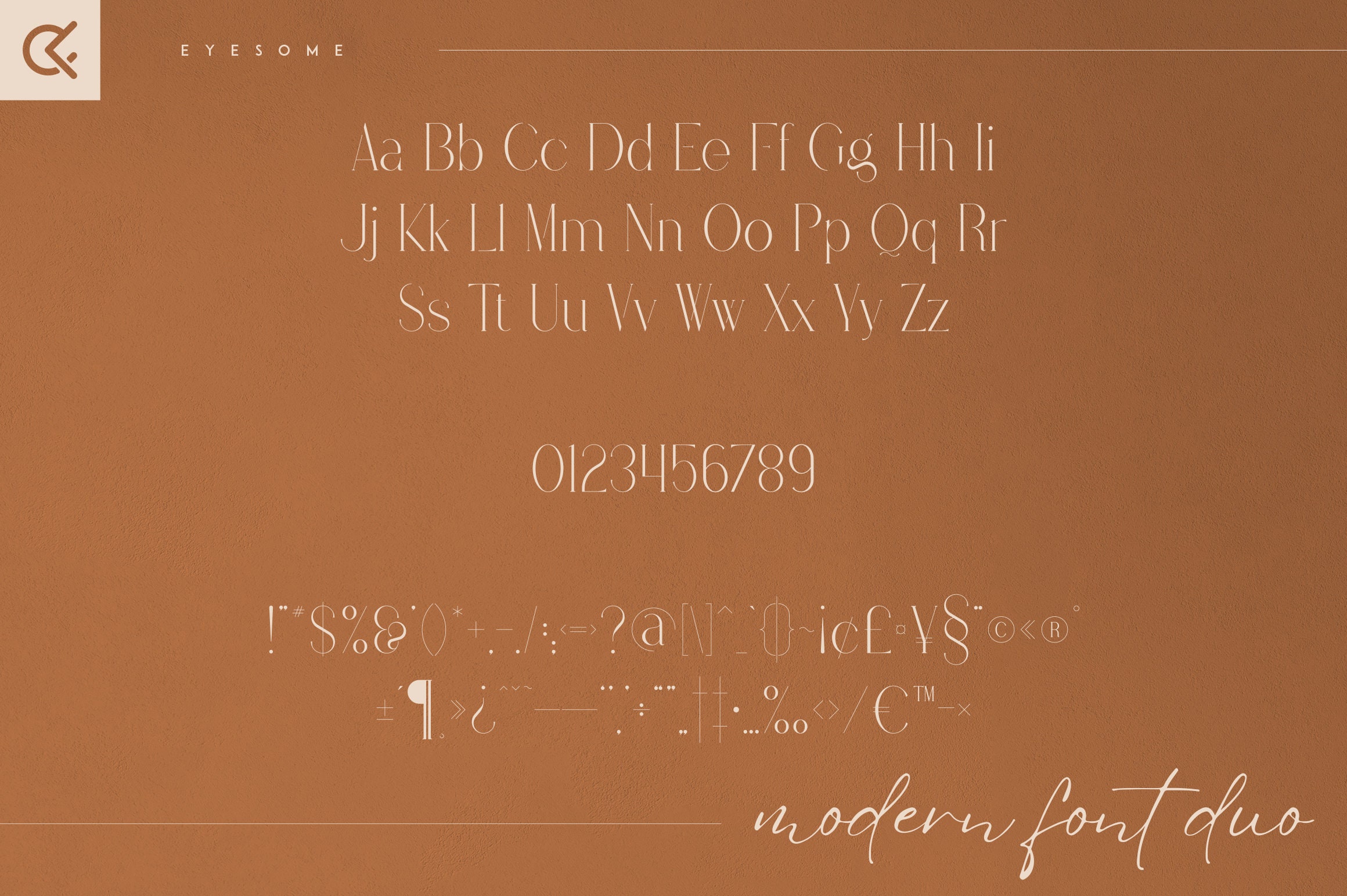
Eyesome Script Font
Eyesome Script Font - It's a very versatile font that works great in large and small. Web this font is free for personal use and no commercial use is allowed! Web eyesome is an elegant and organic typeface with multilingual support.it’s a very versatile font that works great in large and small sizes. If you want to use it for your commercial purposes, you should purchase its. This font is perfect for posters,. Web eyesome font duo is elegant and organic typeface with multilingual support. Eyesome is elegant and organic typeface with multilingual support. It’s a very versatile font that works great in large and small sizes.
If you want to use it for your commercial purposes, you should purchase its. Web eyesome font duo is elegant and organic typeface with multilingual support. It's a very versatile font that works great in large and small. Web this font is free for personal use and no commercial use is allowed! Web eyesome is an elegant and organic typeface with multilingual support.it’s a very versatile font that works great in large and small sizes. Eyesome is elegant and organic typeface with multilingual support. It’s a very versatile font that works great in large and small sizes. This font is perfect for posters,.
Web this font is free for personal use and no commercial use is allowed! Web eyesome is an elegant and organic typeface with multilingual support.it’s a very versatile font that works great in large and small sizes. It’s a very versatile font that works great in large and small sizes. Eyesome is elegant and organic typeface with multilingual support. This font is perfect for posters,. Web eyesome font duo is elegant and organic typeface with multilingual support. If you want to use it for your commercial purposes, you should purchase its. It's a very versatile font that works great in large and small.
It's a very versatile font that works great in large and small. Web eyesome font duo is elegant and organic typeface with multilingual support. Eyesome is elegant and organic typeface with multilingual support. Web this font is free for personal use and no commercial use is allowed! This font is perfect for posters,.
Web eyesome font duo is elegant and organic typeface with multilingual support. If you want to use it for your commercial purposes, you should purchase its. It’s a very versatile font that works great in large and small sizes. This font is perfect for posters,. It's a very versatile font that works great in large and small.
It's a very versatile font that works great in large and small. Web eyesome is an elegant and organic typeface with multilingual support.it’s a very versatile font that works great in large and small sizes. Web this font is free for personal use and no commercial use is allowed! This font is perfect for posters,. Web eyesome font duo is.
Eyesome is elegant and organic typeface with multilingual support. This font is perfect for posters,. It's a very versatile font that works great in large and small. It’s a very versatile font that works great in large and small sizes. Web eyesome font duo is elegant and organic typeface with multilingual support.
Web eyesome font duo is elegant and organic typeface with multilingual support. Web this font is free for personal use and no commercial use is allowed! This font is perfect for posters,. Eyesome is elegant and organic typeface with multilingual support. Web eyesome is an elegant and organic typeface with multilingual support.it’s a very versatile font that works great in.
Web eyesome is an elegant and organic typeface with multilingual support.it’s a very versatile font that works great in large and small sizes. It's a very versatile font that works great in large and small. Web this font is free for personal use and no commercial use is allowed! Eyesome is elegant and organic typeface with multilingual support. Web eyesome.
Web eyesome is an elegant and organic typeface with multilingual support.it’s a very versatile font that works great in large and small sizes. Web eyesome font duo is elegant and organic typeface with multilingual support. If you want to use it for your commercial purposes, you should purchase its. This font is perfect for posters,. Eyesome is elegant and organic.
Web this font is free for personal use and no commercial use is allowed! Web eyesome is an elegant and organic typeface with multilingual support.it’s a very versatile font that works great in large and small sizes. It’s a very versatile font that works great in large and small sizes. If you want to use it for your commercial purposes,.
Web eyesome is an elegant and organic typeface with multilingual support.it’s a very versatile font that works great in large and small sizes. It’s a very versatile font that works great in large and small sizes. Eyesome is elegant and organic typeface with multilingual support. It's a very versatile font that works great in large and small. Web eyesome font.
If you want to use it for your commercial purposes, you should purchase its. Web eyesome font duo is elegant and organic typeface with multilingual support. It’s a very versatile font that works great in large and small sizes. It's a very versatile font that works great in large and small.
Web eyesome is an elegant and organic typeface with multilingual support.it’s a very versatile font that works great in large and small sizes. This font is perfect for posters,.